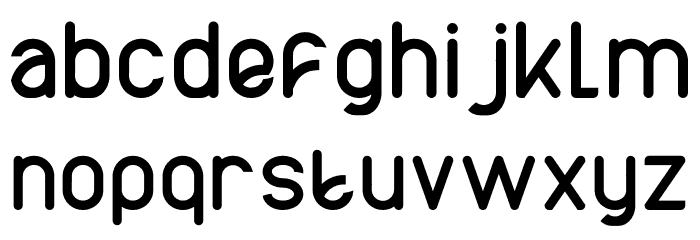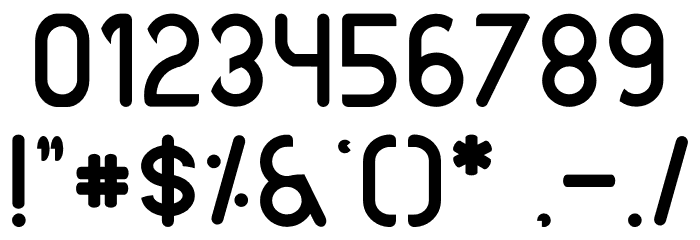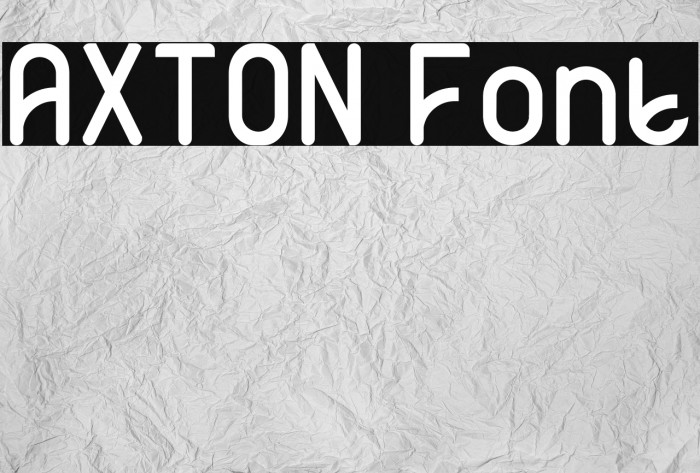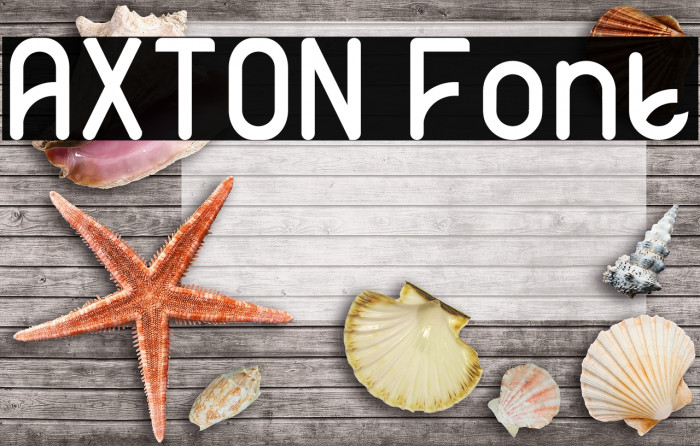
AXTON Font
This font features a modern and rounded sans-serif style, characterized by its smooth curves and uniform stroke width. The letters are bold and have a playful yet clean appearance, making them highly legible. The uppercase and lowercase letters maintain a consistent design, with rounded edges that give a friendly and approachable feel. The numbers and special characters follow the same design principles, ensuring a cohesive look across all elements. This font's simplicity and clarity make it versatile for various design applications.
A modern, rounded sans-serif font with smooth curves and uniform strokes.
- Proposed Projects: Ideal for branding, signage, children's books, and digital interfaces where clarity and friendliness are essential.
- Use Case: Headlines, Logos, Digital Interfaces